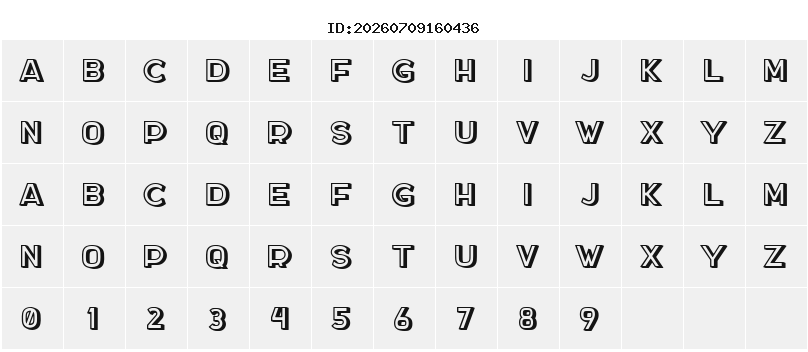
• Font Name: DOCKER THREE
• Font Style: THREE
• Full Font Name: DOCKER THREE
• Designer: Slava "Designvamp" Krivonosov
• Manufacturer: Slava "Designvamp" Krivonosov
About DOCKER THREE.ttf
DOCKER THREE.ttf is a modern, elegant sans-serif font designed for ultimate readability and visual harmony. Perfect for branding, headlines, web design, and print materials.